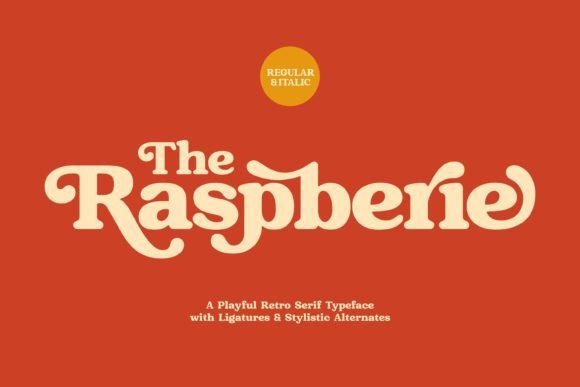
Introducing Raspberie Font, the ultimate choice for all your typography needs! Crafted with love and passion by variatype, this font is the epitome of elegance and nostalgia, perfect for those seeking a classic and retro design theme.
Raspberie Font belongs to the serif font family, making it the best font for book title serif enthusiasts. Its timeless appeal and sophisticated aesthetics will elevate your projects to new heights.
Immerse yourself in a world of creativity as you explore the endless possibilities with Raspberie Font. Whether you're a poster designer, graphic artist, or a branding expert, this font is your secret weapon.
Unleash your imagination and watch as Raspberie Font breathes life into your designs. Its captivating charm and versatility will captivate your audience, leaving a lasting impression.
With Raspberie Font, every word becomes a work of art. Its elegant curves and graceful strokes add a touch of sophistication to any project. From packaging design to logo creation, this font effortlessly elevates your brand identity.
But don't just take our word for it. Let the power of Raspberie Font speak for itself as you witness the magic it creates. Feel the emotions evoked by its timeless beauty and let it transport you to a bygone era.
Indulge in the nostalgia and charm of Raspberie Font, and let your creativity flourish. It's time to make a statement and leave a lasting impression with this exceptional font.